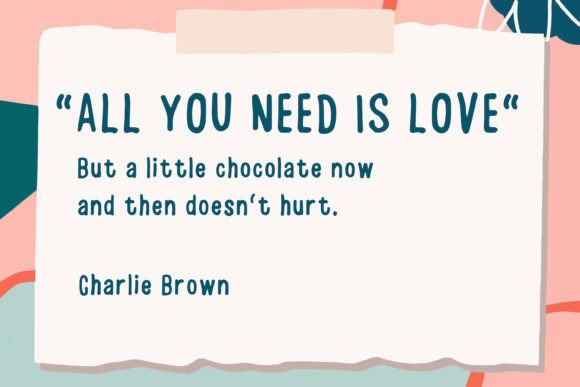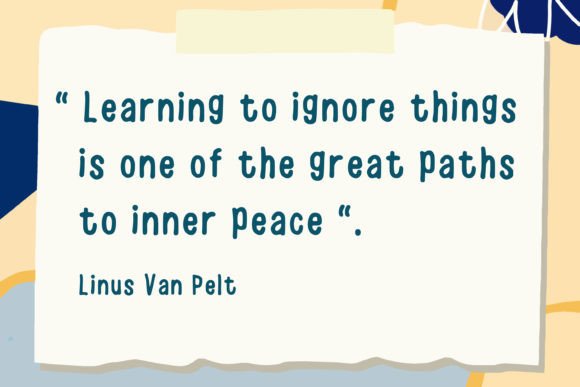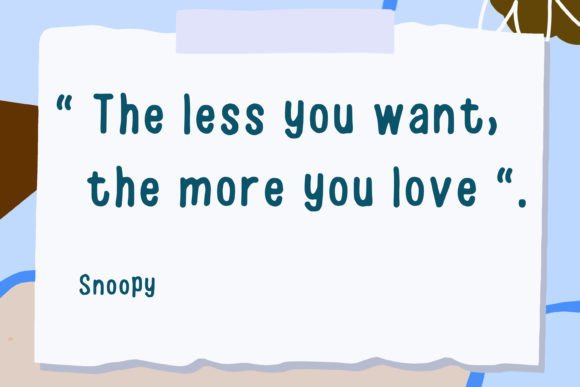
Boldo Boldie Font: The Ultimate Companion for Designers and Crafters
In the world of typography, fonts play a crucial role in conveying emotions and setting the tone for various design projects. Among the numerous fonts available, Boldo Boldie stands out as a fun and handwritten font that exudes impeccable friendliness. This versatile font is perfect for a wide range of applications, from crafts and digital design to presentations and greeting cards. In this article, we’ll explore the features and benefits of Boldo Boldie, and why it’s poised to become your favorite go-to font for any occasion.
The Characteristics of Boldo Boldie
Boldo Boldie is a handwritten font that boasts a unique and charming personality. Its bold and playful strokes make it an excellent choice for designers and crafters looking to add a personal touch to their projects. The font’s friendly and approachable feel makes it perfect for a variety of applications, including:
- Crafts: Use Boldo Boldie to add a personal touch to your DIY projects, such as handmade cards, scrapbooking, and other paper crafts.
- Digital Design: Boldo Boldie is ideal for digital designers looking to create engaging and interactive content, such as social media graphics, blog posts, and website headers.
- Presentations: Add a touch of personality to your presentations with Boldo Boldie, making them more engaging and memorable.
- Greeting Cards: Create personalized and heartfelt greeting cards with Boldo Boldie, perfect for special occasions like birthdays, holidays, and weddings.
Why Choose Boldo Boldie?
So, what sets Boldo Boldie apart from other fonts? Here are a few reasons why designers and crafters are falling in love with this font:
- Friendliness: Boldo Boldie’s friendly and approachable feel makes it perfect for projects that require a personal touch.
- Versatility: This font is suitable for a wide range of applications, from digital design to crafts and presentations.
- Easy to Read: Boldo Boldie’s clear and bold strokes make it easy to read, even at smaller font sizes.
- Unique Personality: This font has a distinct and charming personality that will set your projects apart from others.
Tips for Using Boldo Boldie
To get the most out of Boldo Boldie, here are some tips to keep in mind:
- Pair it with Other Fonts: Combine Boldo Boldie with other fonts to create visually appealing and engaging designs.
- Experiment with Colors: Try out different colors and color combinations to add depth and personality to your projects.
- Use it for Headings and Titles: Boldo Boldie is perfect for headings and titles, adding a touch of personality and flair to your designs.
- Don’t be Afraid to Get Creative: Boldo Boldie is a versatile font that can be used in a variety of creative ways, so don’t be afraid to experiment and try new things.
In conclusion, Boldo Boldie is a fun and handwritten font that conveys impeccable friendliness, making it perfect for designers and crafters looking to add a personal touch to their projects. With its versatility, unique personality, and ease of use, Boldo Boldie has the potential to become your favorite go-to font for any occasion. So why not give it a try and see how it can elevate your designs and crafts to the next level?
Boldo Boldie is a fantastic addition to any designer’s or crafter’s toolkit. Its friendly and approachable feel, versatility, and unique personality make it an excellent choice for a wide range of applications. Whether you’re a seasoned designer or a crafty DIY enthusiast, Boldo Boldie is sure to become a favorite font that you’ll reach for again and again.